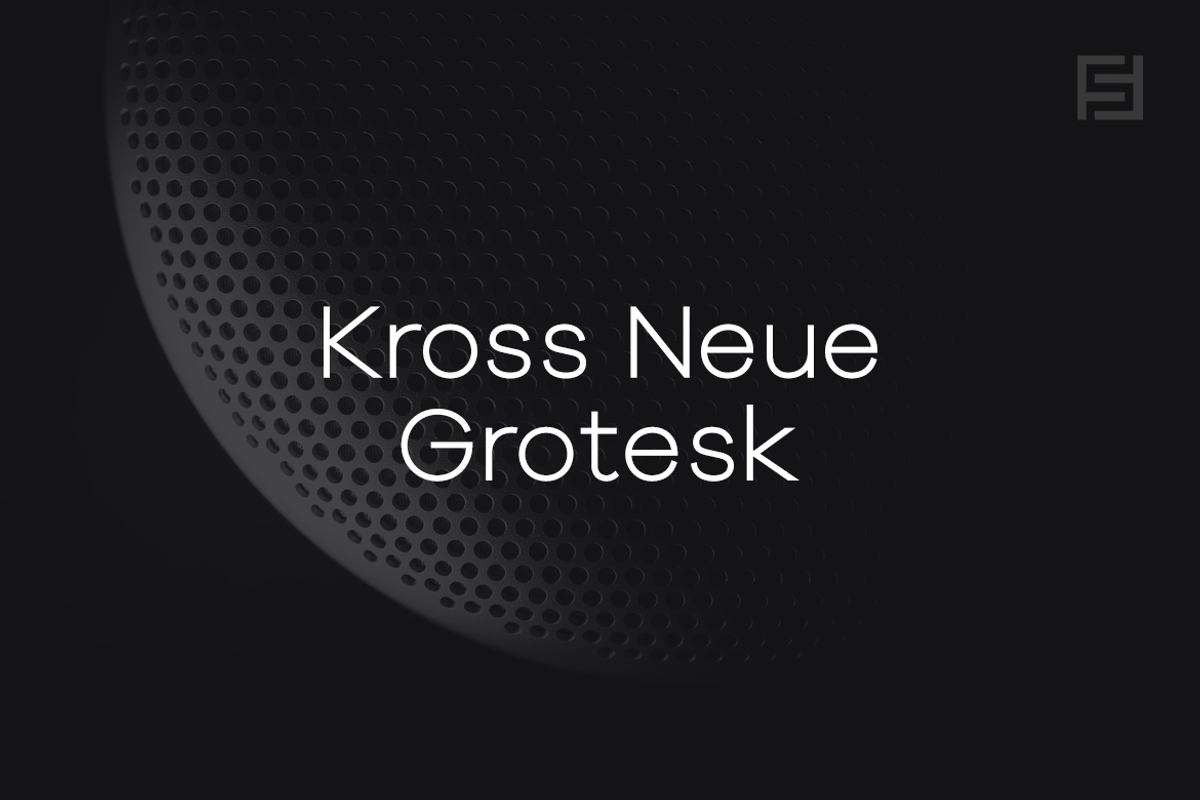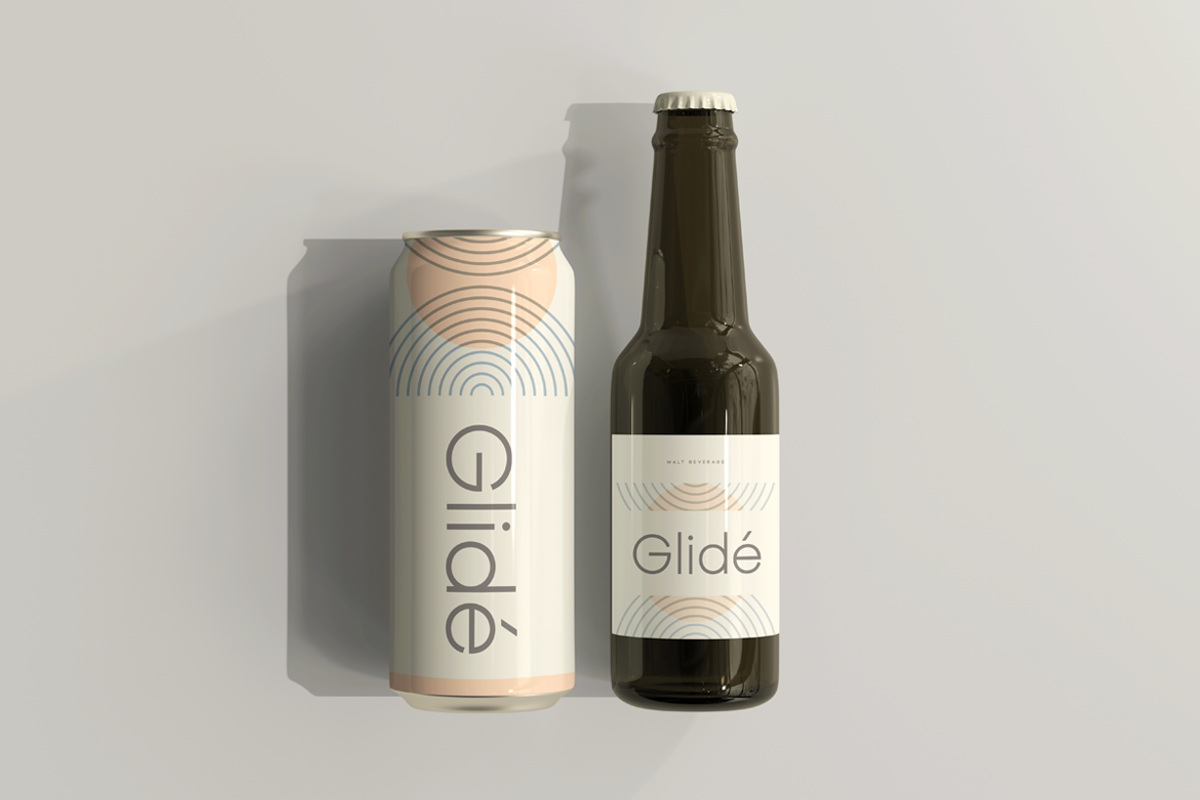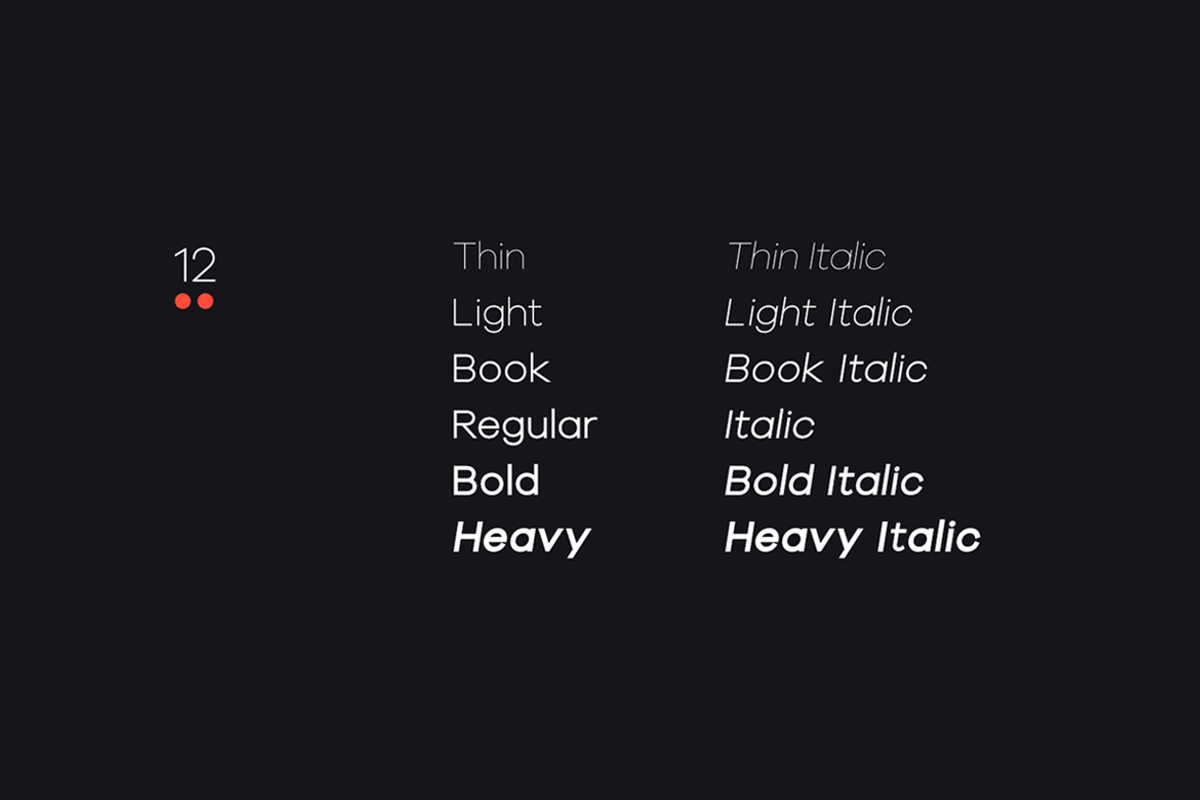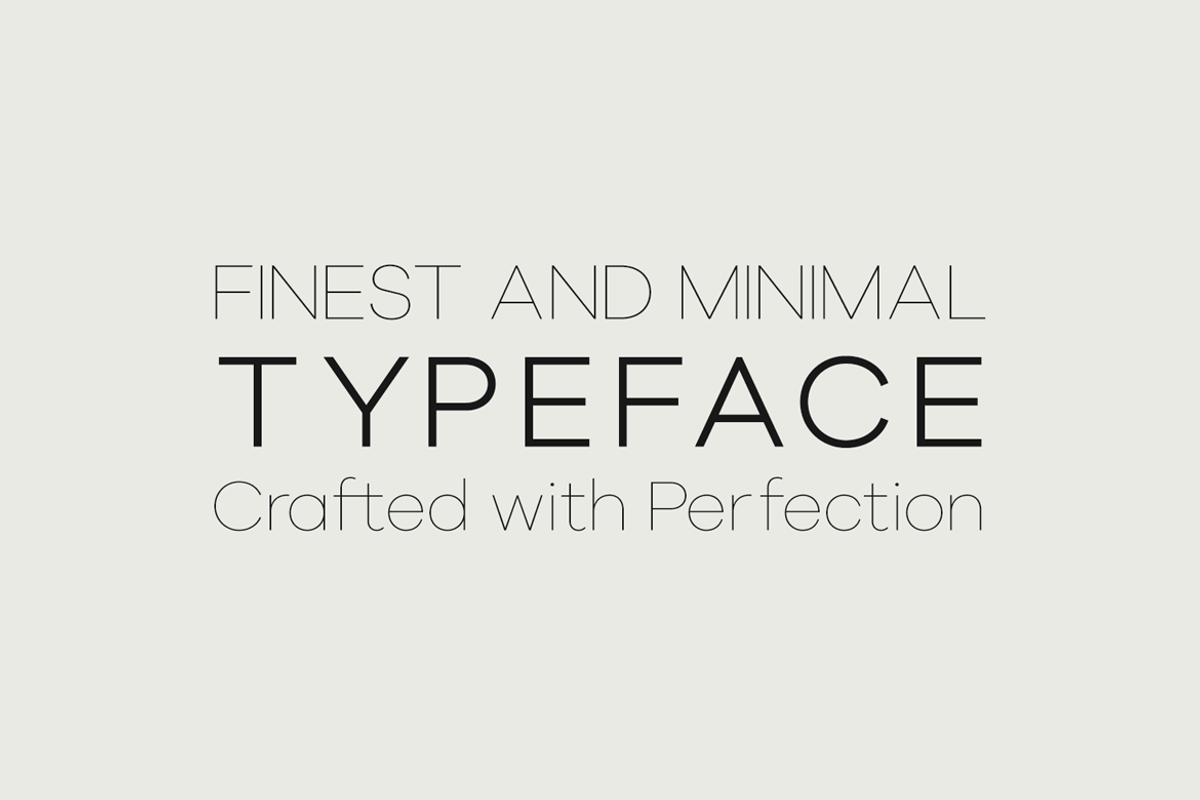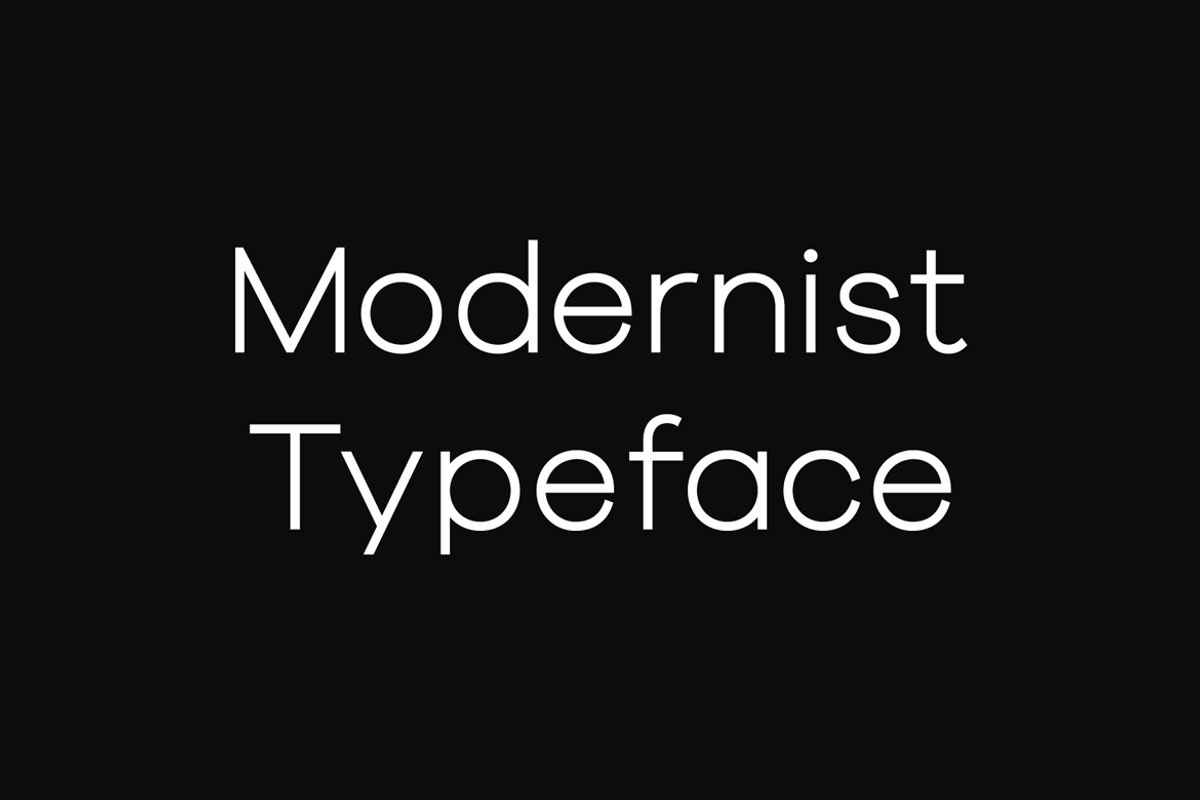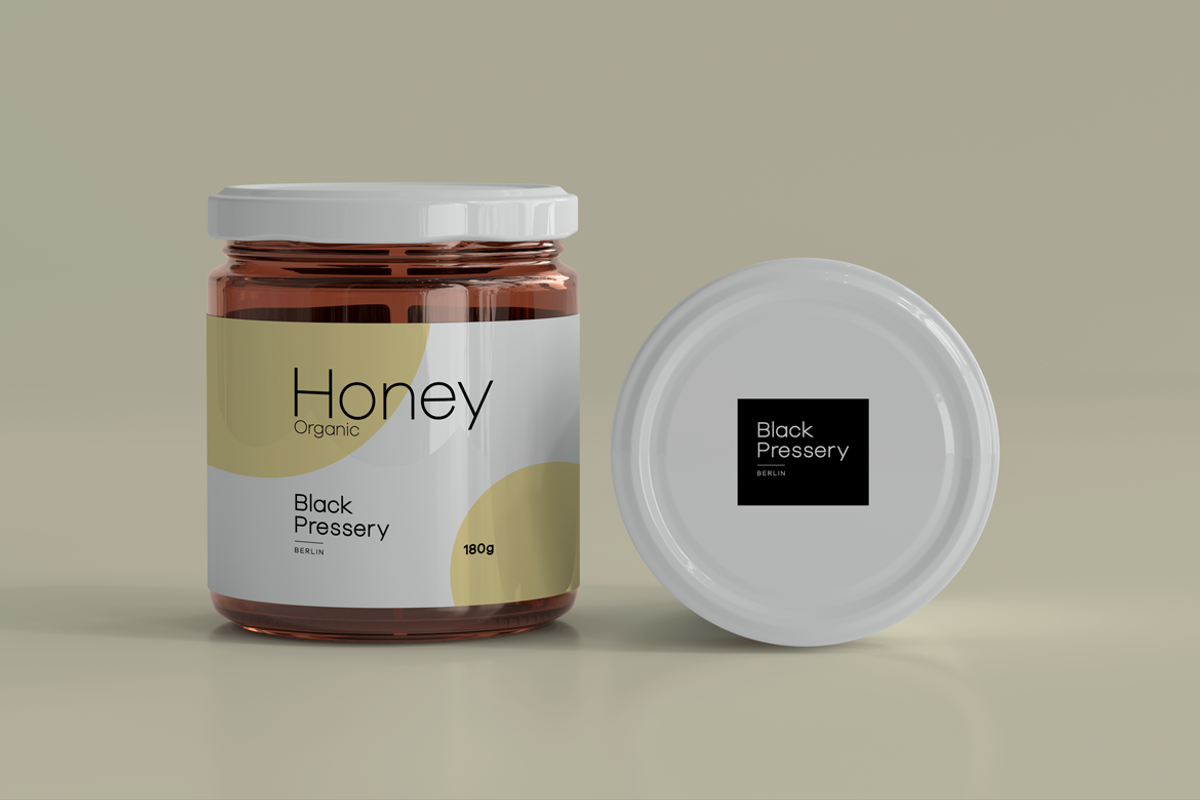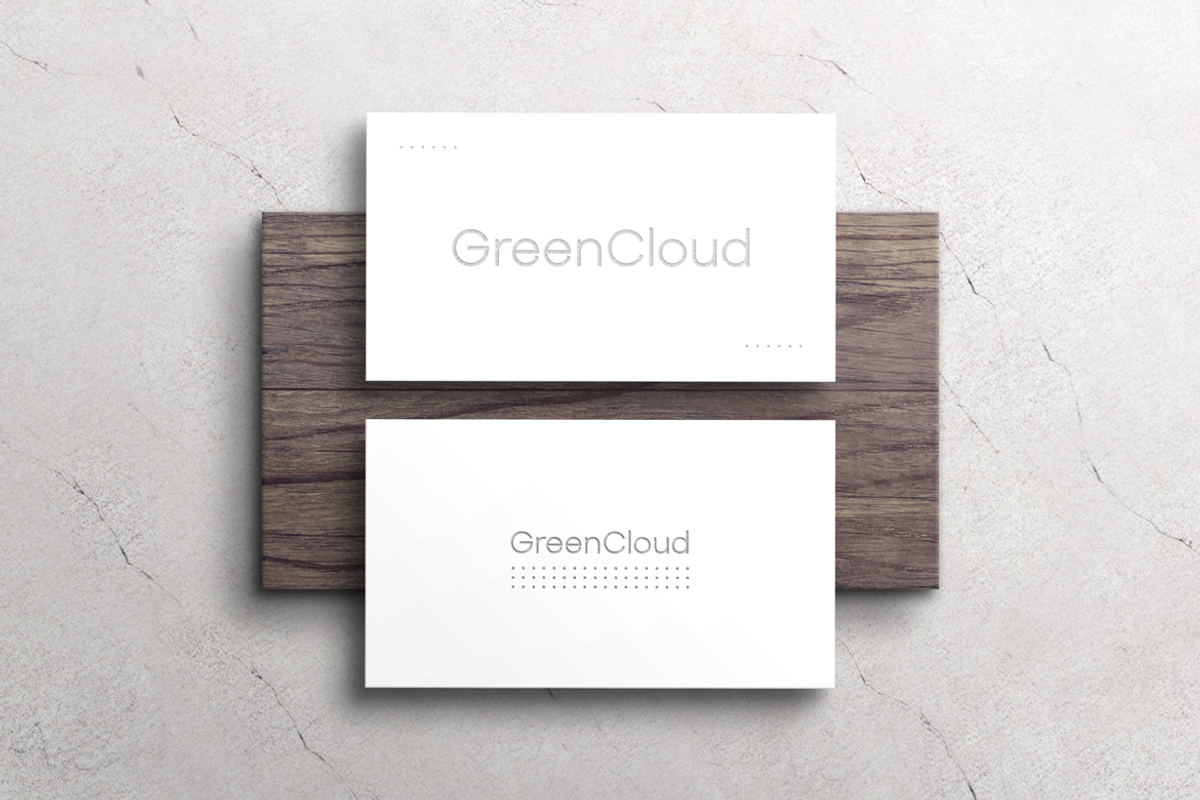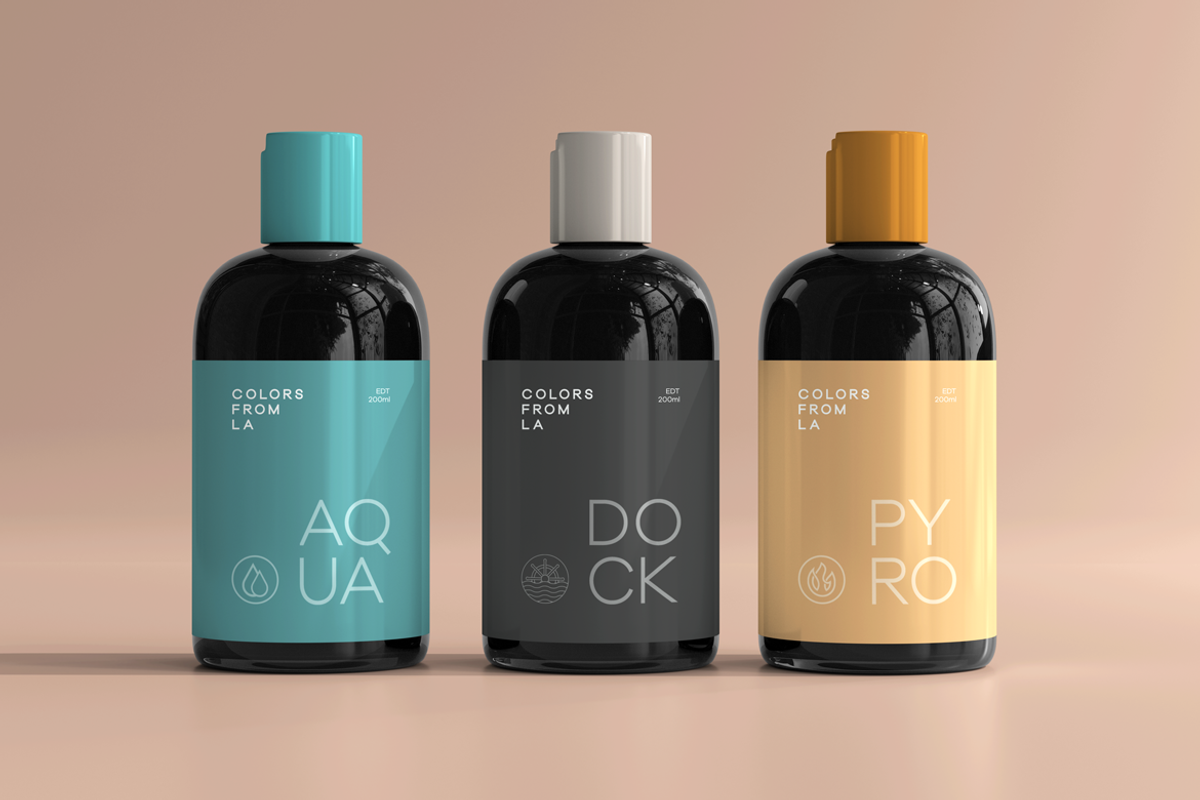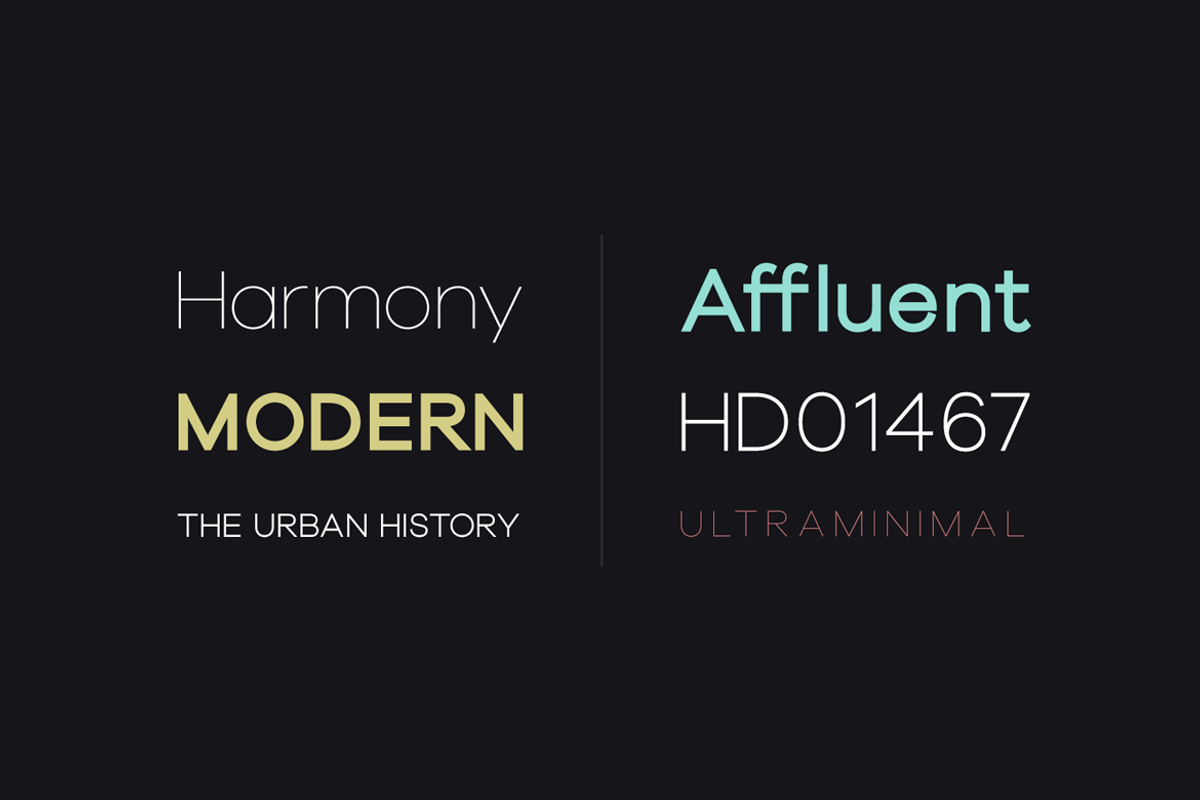
KROSS NEUE GROTESK - The Font Family
Kross Neue Grotesk is a minimalist sans-serif typeface family of 16 fonts featuring the finest design made with attention to every detail. Created with a special focus on minimalism and simplicity in typography, this typeface can transform your design projects to another level of visual appeal.
Handcrafted and designed with powerful OpenType features in mind, each weight includes extended language support including Western European & Central European sets. A total of 268 glyphs are included.
Kross Neue Grotesk is a perfect choice for graphic design, text presentation, web design, print and display use. The typeface can be an amazing option for beautiful branding, logo / logotype design projects, marketing graphics, banners, posters, signage, corporate identities as well as editorial design. Adding extra letter-spacing for the Caps will make this font perfect for minimal headlines and logotypes as shown in promo images here.
Typeface designed by Designova, produced by Fontastica